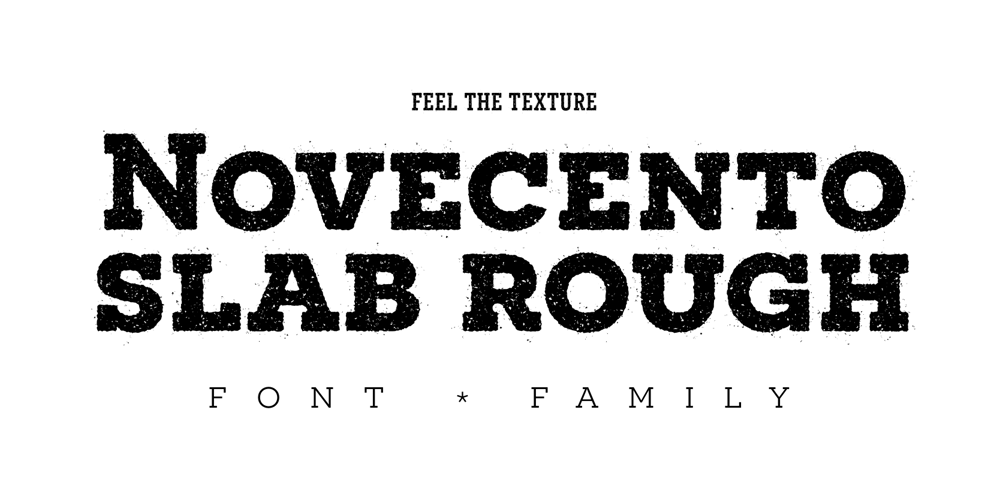
Novecento Slab Rough Font Family was designed by Jan Tonellato and published by Synthview. Novecento Slab Rough contains 32 styles and family package options. Novecento Slab Rough adds a letterpress / analog effect to its Slab Serif parent. Each letter has a different pattern and gives you a truly realistic effect. Even accented variants of any base character are all different. This font has also a built-in feature that automatically displays a texture variant for the 2nd occurrence of a letter or a number when they appear close one to each other. For instance: AA OO TT ÜÜ. But also: AOA NON TXT etc. And don’t forget alternate glyphs design such as N I J Q Y and all other features present in the Novecento mega family: 32 styles, 76 latin languages supported, 590 glyphs and 16 stylistic opentype features for advanced typography.